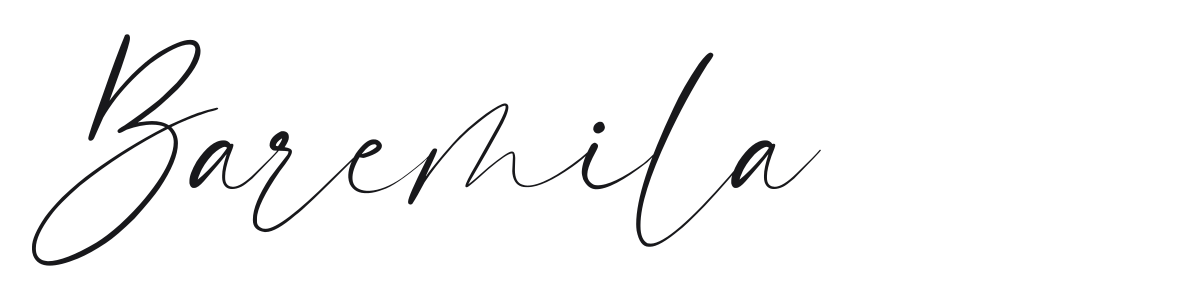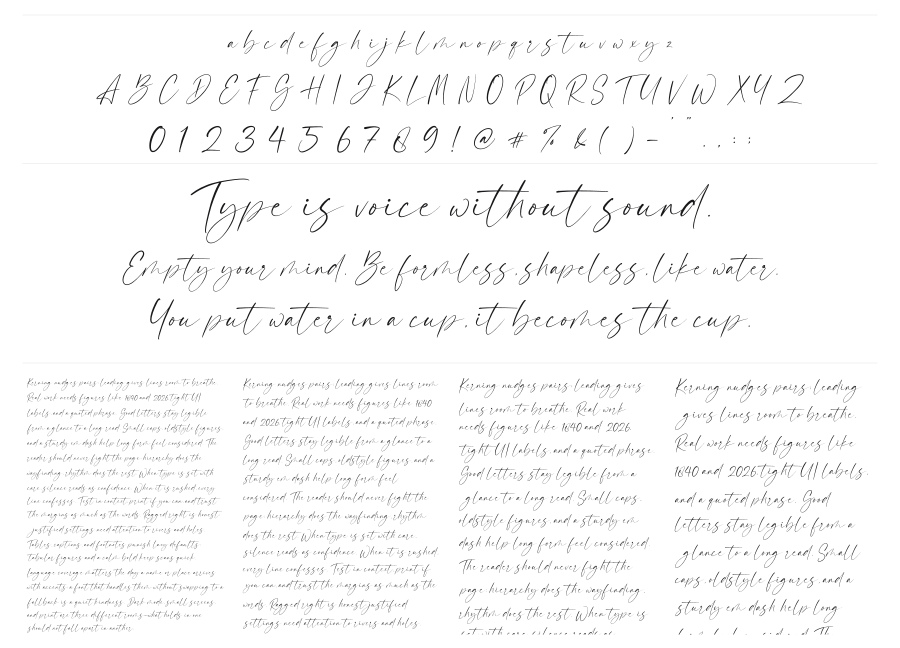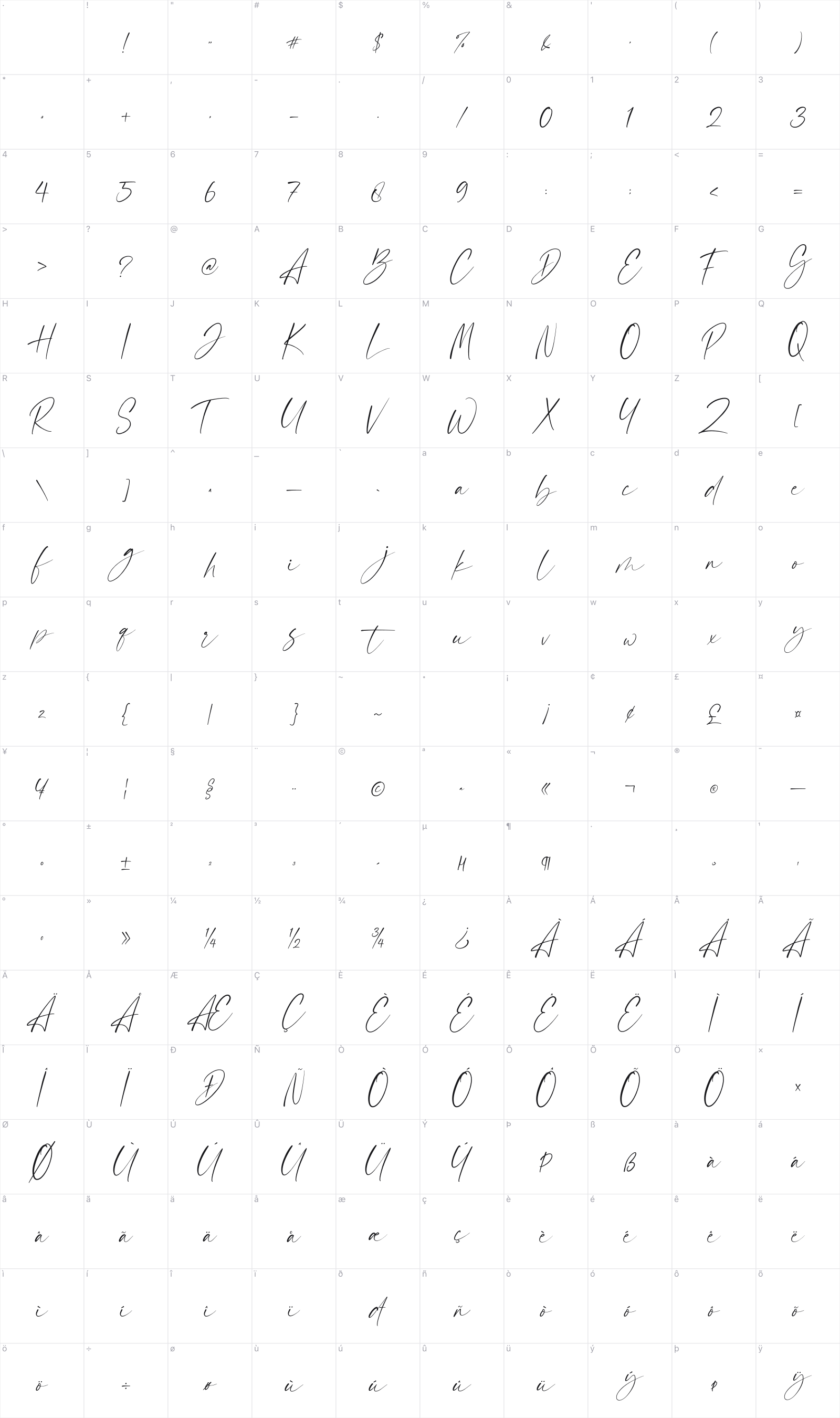
Baremila
Baremila is a flowing casual script with sweeping ascenders and feather-light hairline strokes that give it an effortlessly romantic quality. The generous loops and gently drifting baseline keep it feeling handmade rather than mechanical. It sits naturally in wedding stationery, lifestyle branding, and any context where warmth and elegance need to coexist.